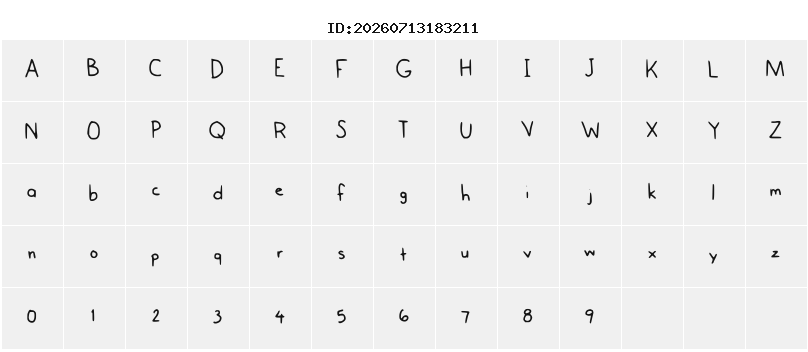
BacktoCool Preview
• Font Name: BacktoCool
• Full Font Name: BacktoCool
• PostScript Name: BacktoCool
About BacktoCool.ttf
BacktoCool.ttf is a modern, elegant sans-serif font designed for ultimate readability and visual harmony. Perfect for branding, headlines, web design, and print materials.